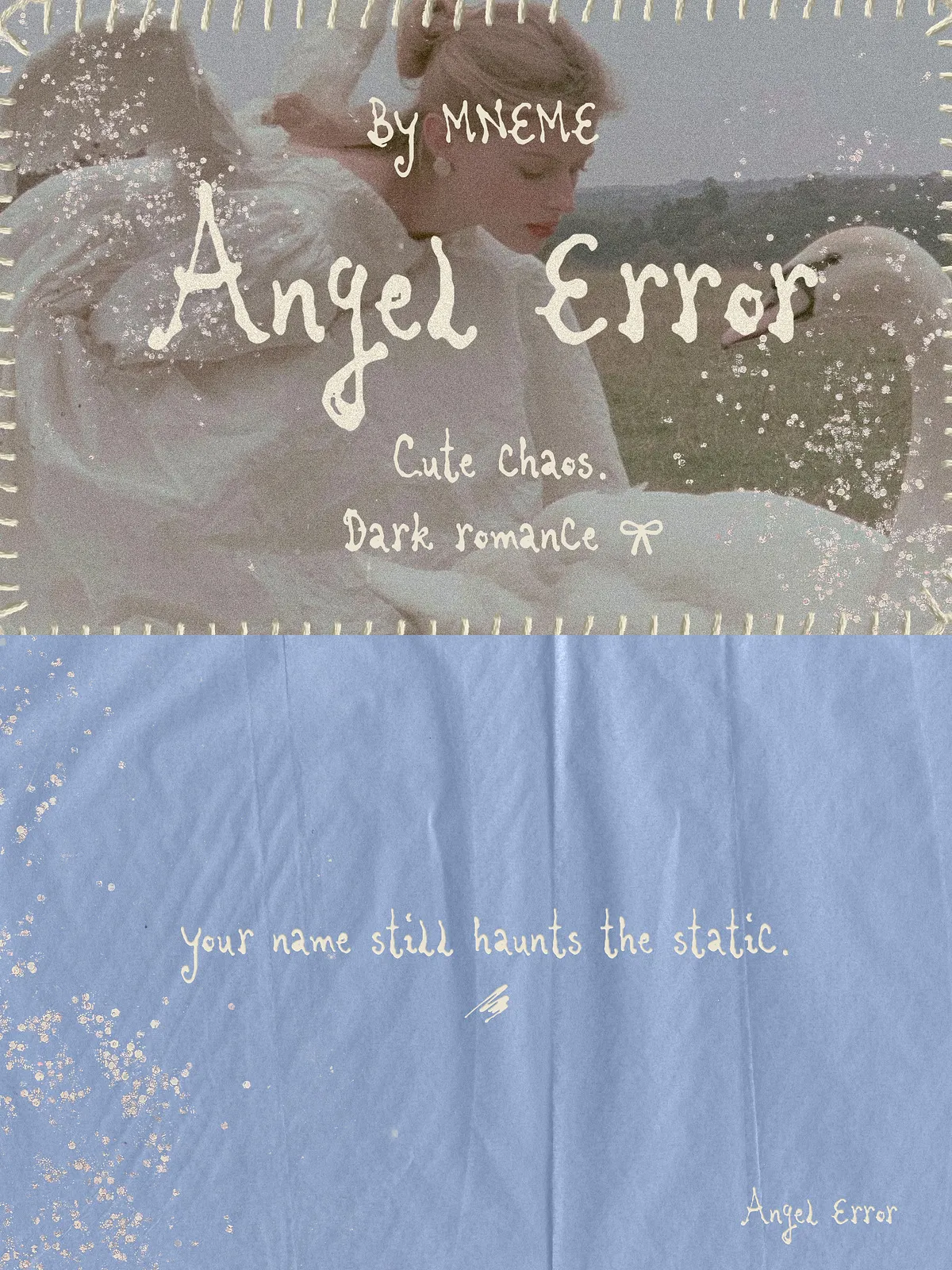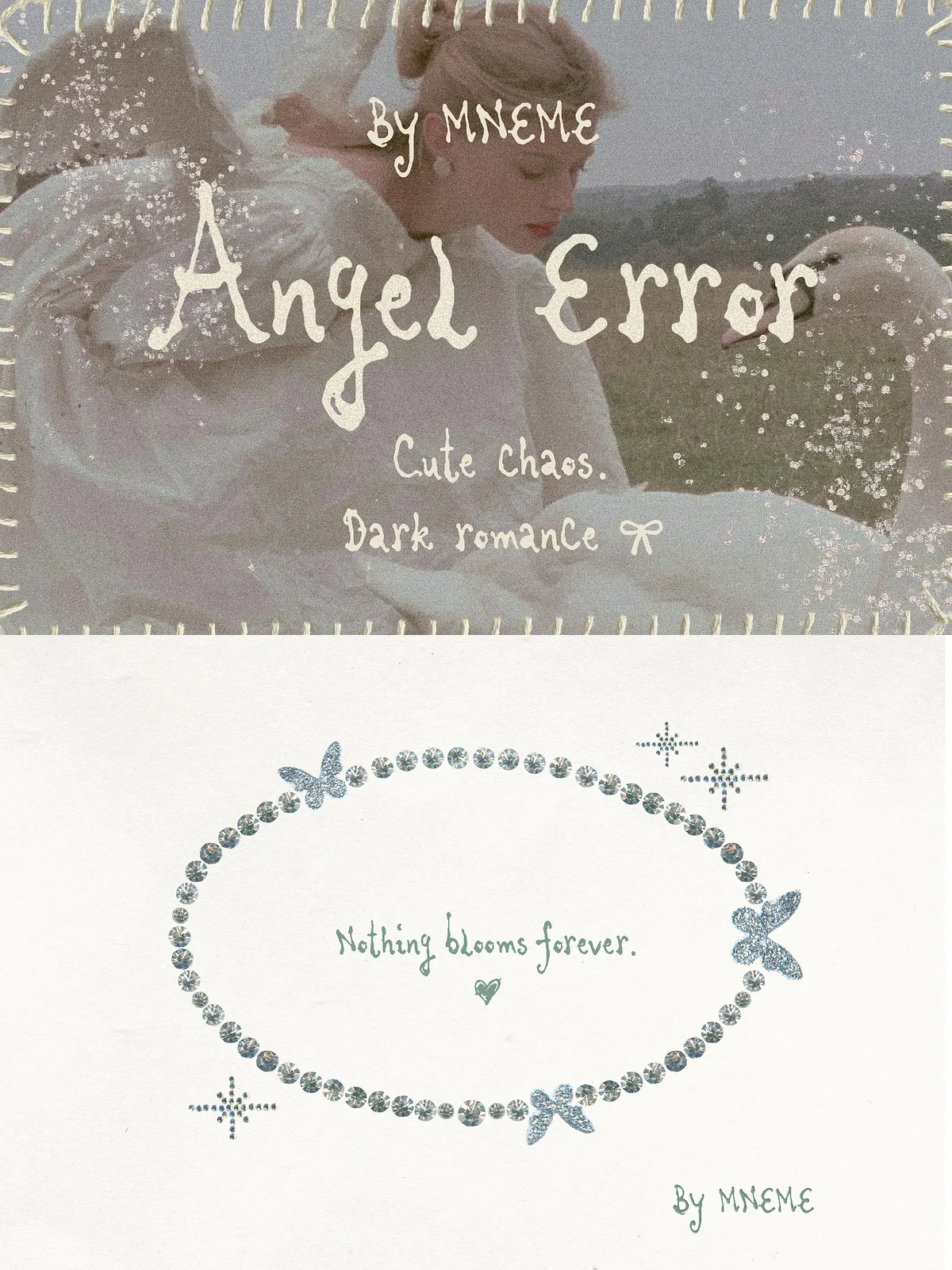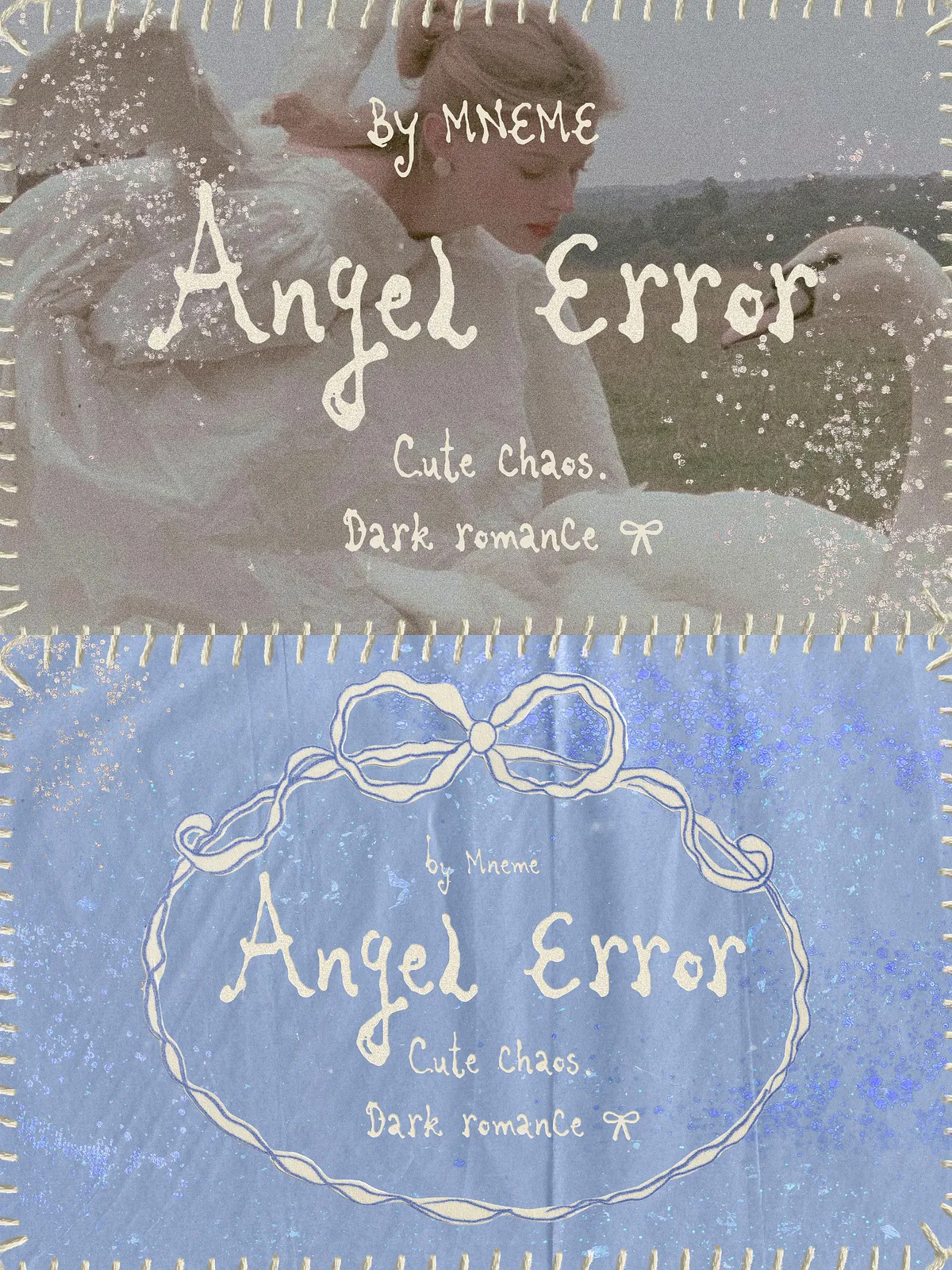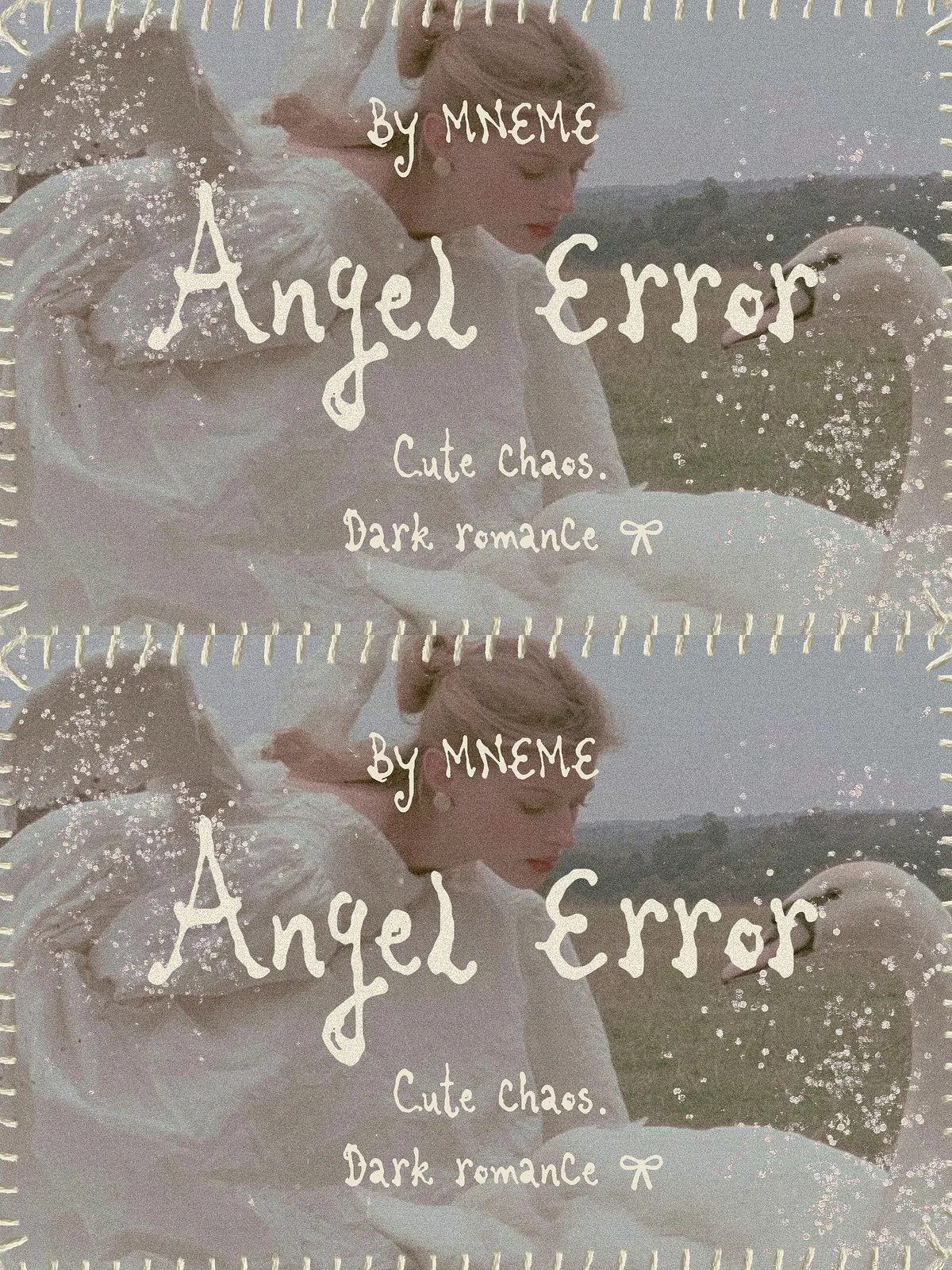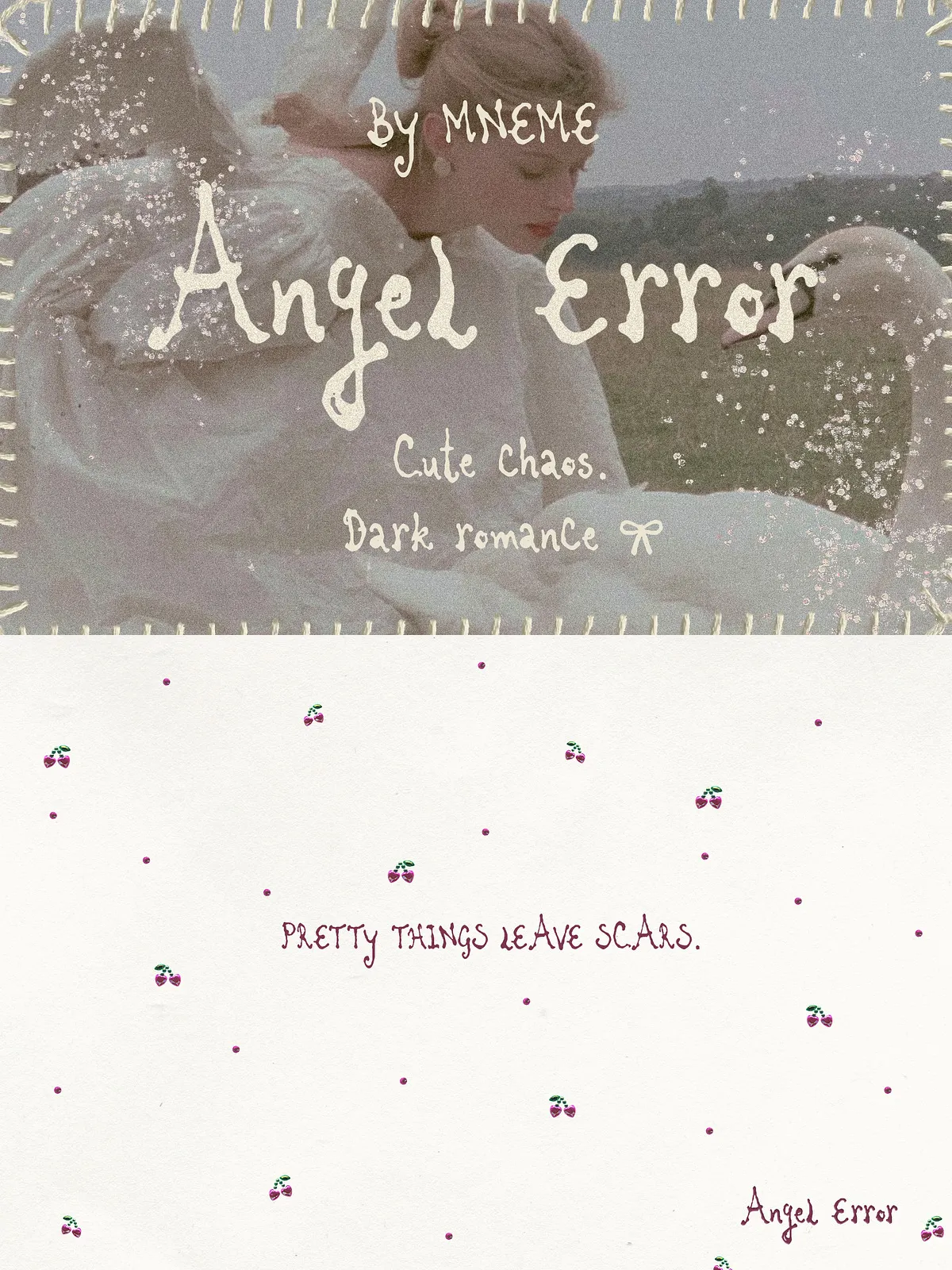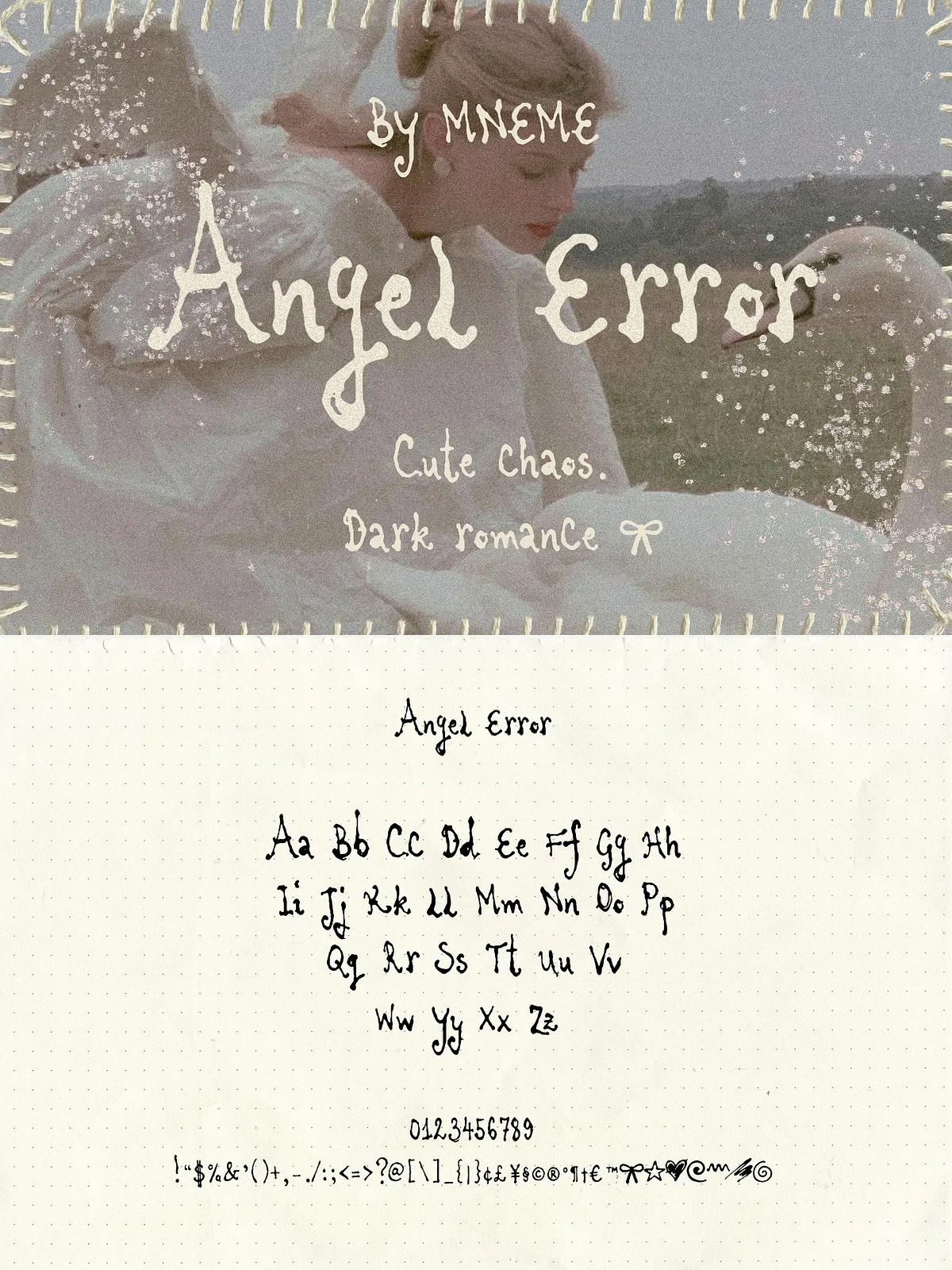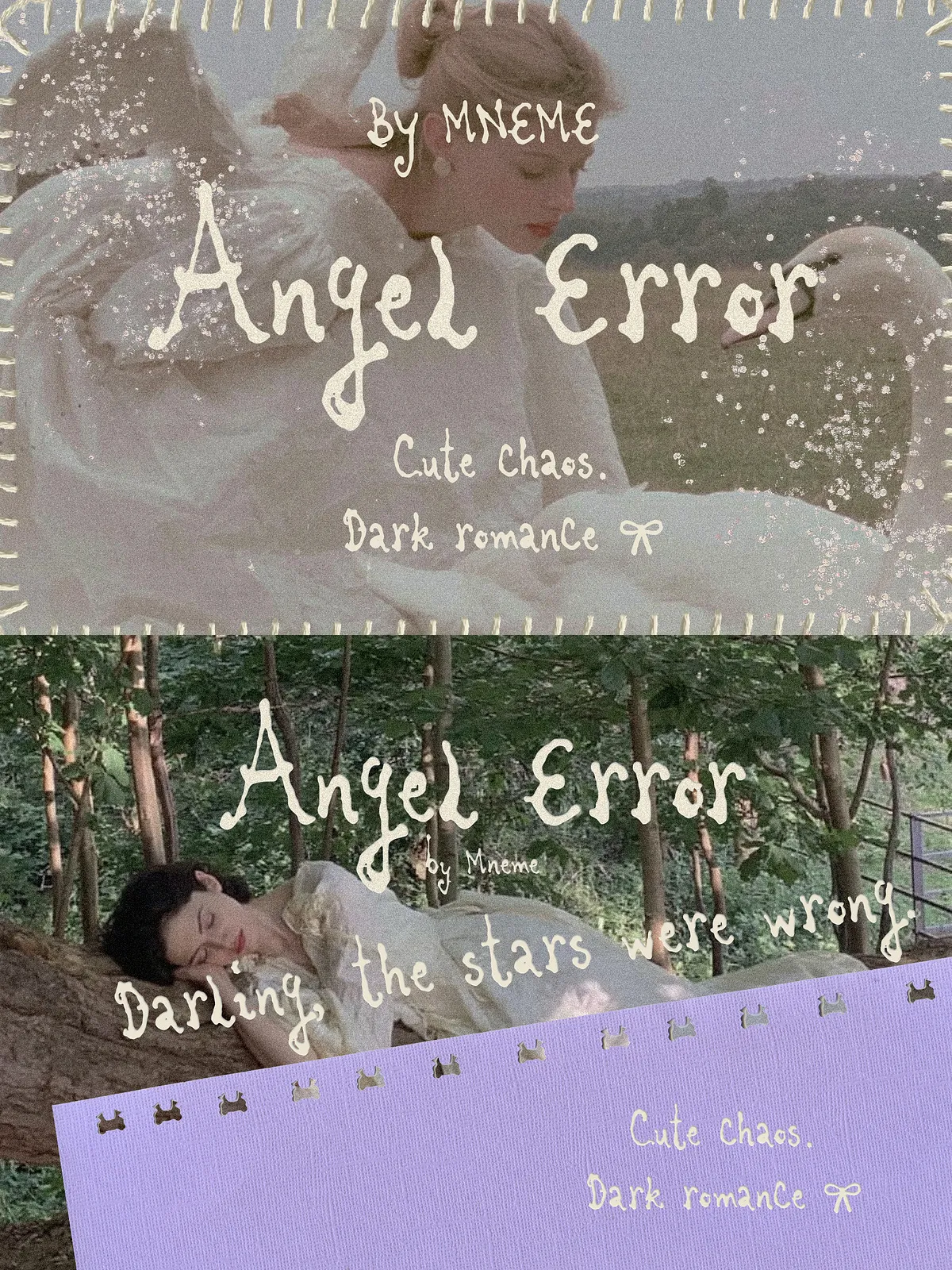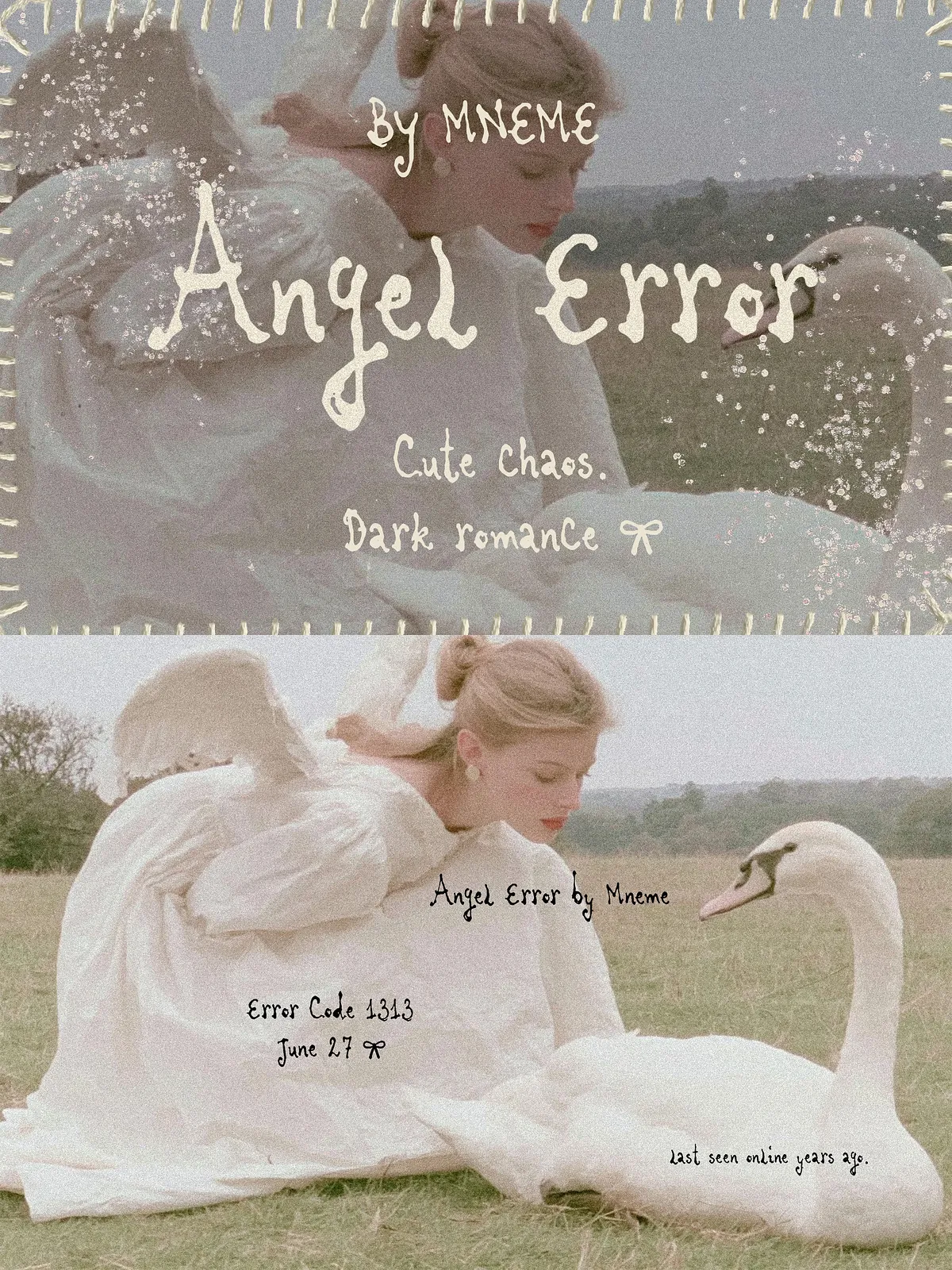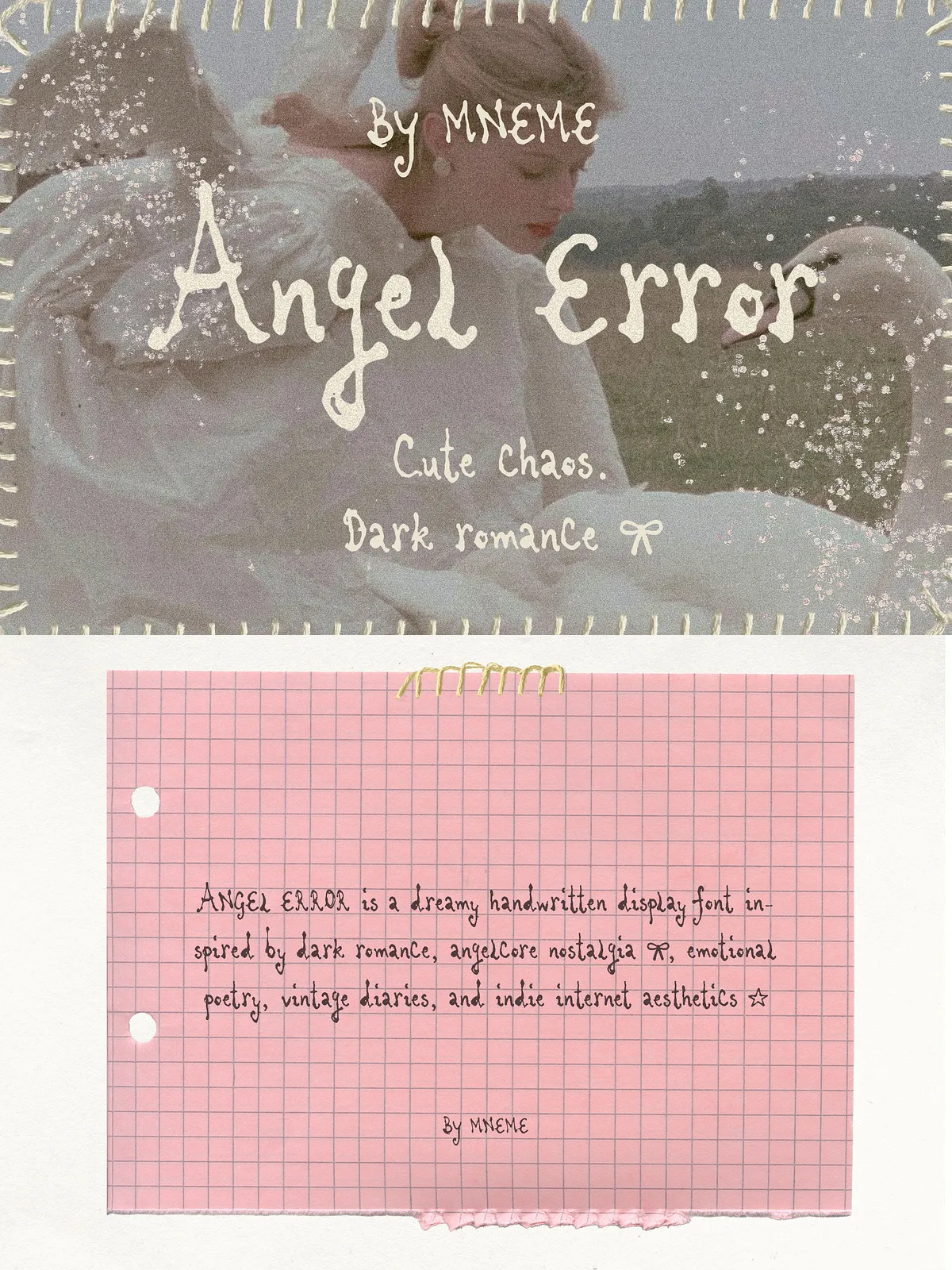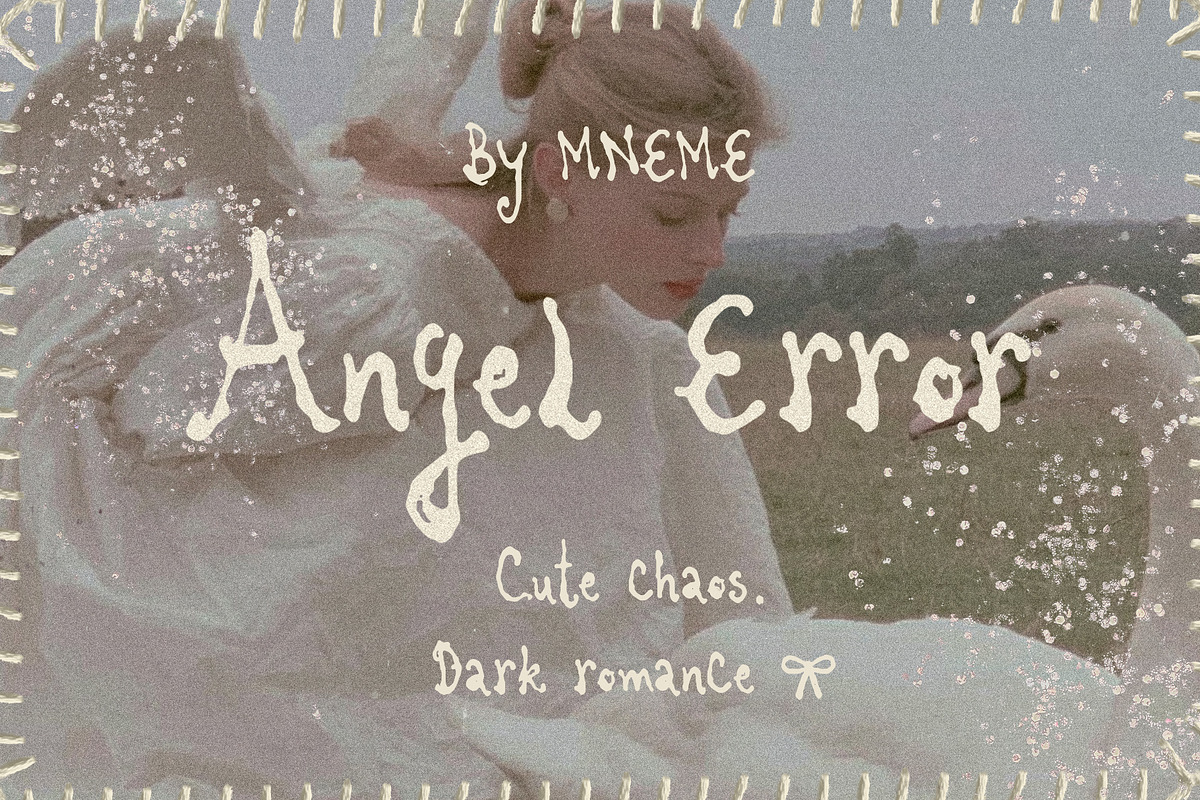
Angel Error presents a delicate yet unsettling handwritten voice that channels dark romance, angelcore nostalgia, and late-night poetic moods. The typeface features imperfect, handcrafted letterforms that read as intimate scribbles, torn diary entries, and wistful online notes. It brings emotional depth and atmospheric personality to any creative project, actively shaping mood and narrative through typography.
Handcrafted Character
Angel Error uses hand-drawn strokes and subtle irregularities to convey authenticity. The imperfect shapes and slightly uneven baselines create a palpable human touch that reads as both tender and emotionally charged.
Complete Character Set
Multilingual Support
Angel Error supports multiple languages so you can deploy it for global projects without losing typographic integrity. The multilingual glyph set ensures diacritics and special characters reproduce cleanly.
Emotional Versatility
Although distinctly dreamy and melancholic, Angel Error adapts well across applications: from bold album cover headlines to intimate body text snippets in editorial spreads. Its voice moves between vulnerable and assertive, allowing designers to steer tone precisely.
- Uppercase and lowercase glyphs
- Numerals, punctuation, and basic symbols
- Multilingual character support
- Handcrafted letter design optimized for display use
Perfect For
Choose Angel Error when you want typography that feels personal, poetic, and a little haunted. Common applications include:
- Album covers and artist branding
- Editorial features and magazine spreads
- Fashion and lifestyle branding
- Book covers and poetry collections
- Posters and promotional graphics
- Social media visuals and micro-content
- Scrapbooking and creative merchandise
- Packaging that needs a handcrafted mood
Styling & Pairing Recommendations
Contrast with Clean Sans
Pair Angel Error with a neutral sans-serif for body copy to keep layouts legible while preserving the font’s emotional impact in headlines. The clean sans balances the handcrafted irregularities and anchors compositions.
Use as Feature Display
Deploy Angel Error primarily as a display typeface—headlines, pull quotes, logos, and cover text—where its personality can carry the visual message without sacrificing readability. Avoid long paragraphs in this font; instead, reserve it for moments that need emotional emphasis.
Textures and Backgrounds
Enhance the mood by combining Angel Error with subtle paper textures, film grain, or faded photographs. These backgrounds amplify the vintage-diary and indie-internet vibes while preserving the font’s delicate details.
Practical Tips for Designers
- Increase letter spacing slightly for larger display sizes to accentuate the handwritten rhythm.
- Pair with muted color palettes—pale creams, washed greys, and soft blacks—to emphasize nostalgia and melancholy.
- Use color contrast strategically: dark ink tones for headline prominence, lighter tints for romantic whisper-like accents.
- Test final output at intended sizes—printed materials and small-screen thumbnails can affect how the handmade strokes render.